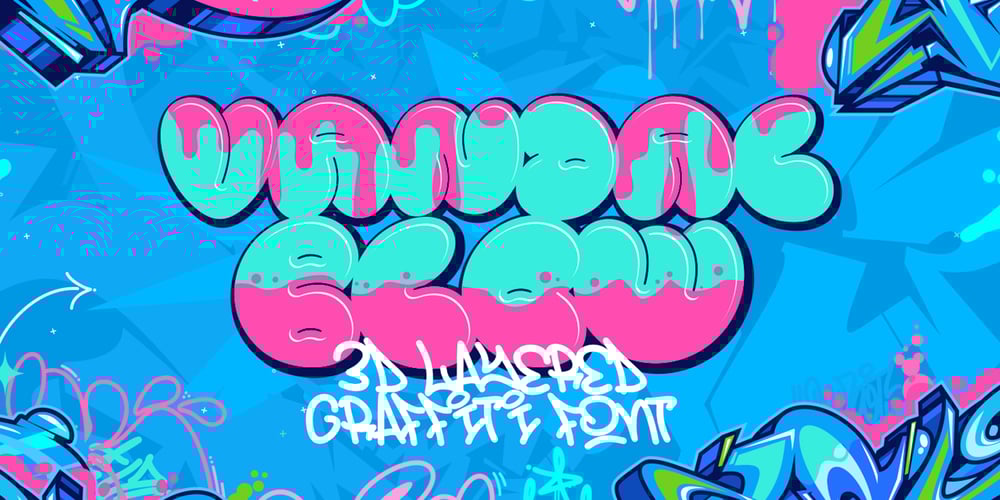
Vandal Blow Graffiti Regular Font Family was designed by Sipanji and published by Sipanji21. Vandal Blow Graffiti Regular contains 3 styles and family package options. “Vandal Blow” is a 3D layered graffiti font that includes solid, shadow, and inner shadow styles, providing the tools to create a three-dimensional appearance in your text. Fonts with layered styles like this are commonly employed in graffiti art, street art, posters, and other designs where a dynamic and eye-catching 3D effect is desired.By utilizing the solid, shadow, and inner shadow layers in “Vandal Blow,” you can enhance the visual impact of your text, creating a sense of depth and dimension. This font is particularly suitable for projects where you want to infuse a graffiti-style aesthetic with a three-dimensional twist, making your text stand out and grab attention.